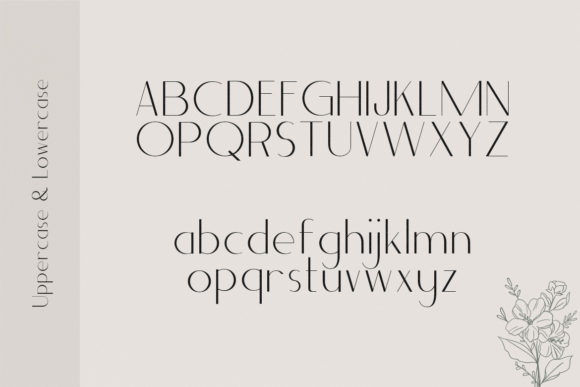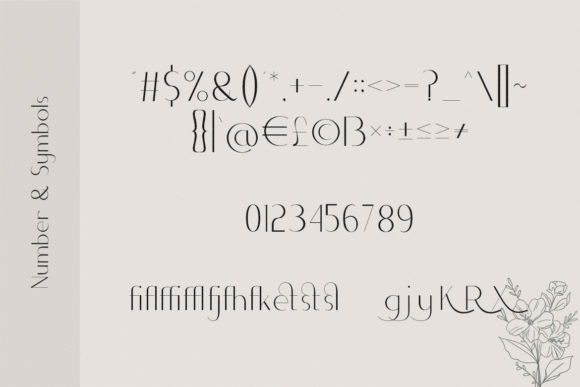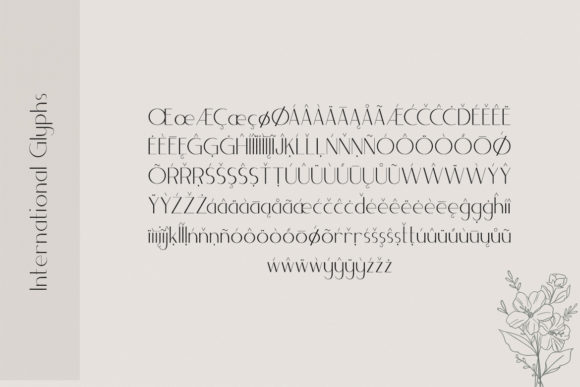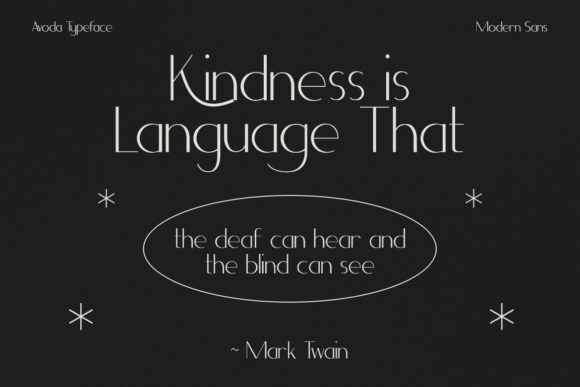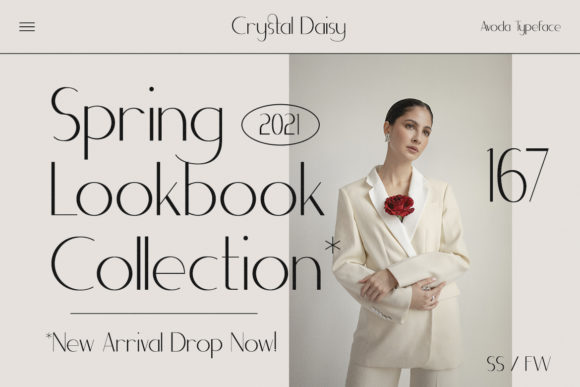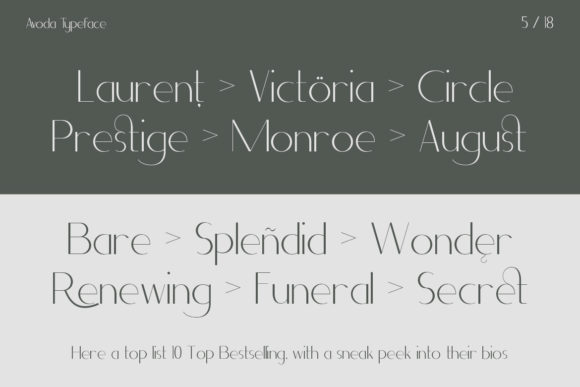
Discover the Timeless Elegance of Avoda Font
There’s a moment when you’re working on a design project, and you’re not quite sure how to bring it all together. The words, the images, the colors – everything seems to be waiting for that perfect finishing touch. That’s when you remember the power of a beautifully crafted font. For designers, the right font can be the difference between a good design and a great one. And that’s exactly what Avoda Font is designed to do – elevate your projects with its understated yet sophisticated style.
Avoda Font is a masterclass in elegance, with a delicate balance of thin and thick lines that creates a sense of visual harmony. Whether you’re working on a luxury brand, a wedding invitation, or a high-end magazine, Avoda Font is the perfect choice to add a touch of refinement and sophistication to your design. With its versatility and timeless appeal, Avoda Font is a valuable addition to any designer’s toolkit.
Key Features of Avoda Font
- Font Family: Avoda Font is a modern sans-serif font family designed for professional use. It is available in 8 different weights, from Thin to Black.
- Character Count: The Avoda Font family contains over 700 characters, including Latin, Cyrillic, and Greek scripts, as well as a wide range of punctuation and special characters.
- Unique Characteristics: Avoda Font features a unique blend of modern and classic design elements, with a focus on legibility and readability in both print and digital formats.
Avoda Font Review
I recently had the chance to work with the Avoda font, and here’s my honest review:
- ✨ The Avoda font has a unique, elegant style that’s perfect for high-end or luxury brand designs.
- ✨ The font is highly legible, even at smaller sizes, making it suitable for a wide range of applications.
- ✨ The font family includes a range of weights and styles, giving designers plenty of options for customization.
- ⚠️ The Avoda font may be too formal or stuffy for some designs, particularly those that require a more playful or casual tone.
- ⚠️ The font’s unique style may not be suitable for body text, as it can be overwhelming or difficult to read in large quantities.
Overall, I’d say that the Avoda font is a great choice for designers who need a high-end, elegant font for their projects. However, it may not be the best fit for every design style or budget. With its unique style and highly legible design, it’s definitely worth considering for the right projects.
Avoda Font is commonly used for:
- Brand logos and identities.
- Headings and titles.
- Quotes and captions